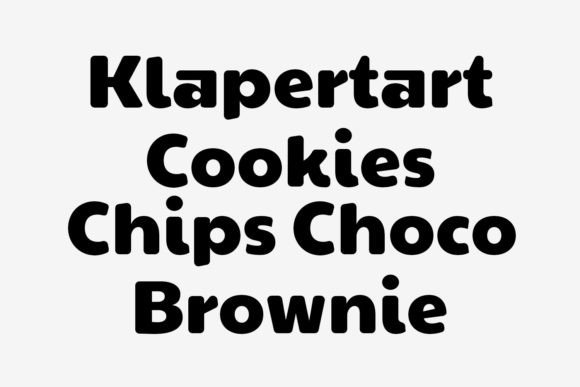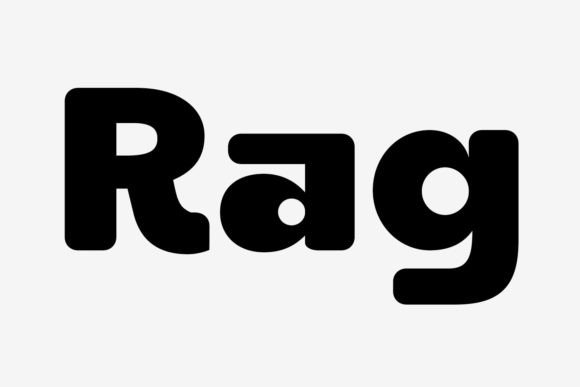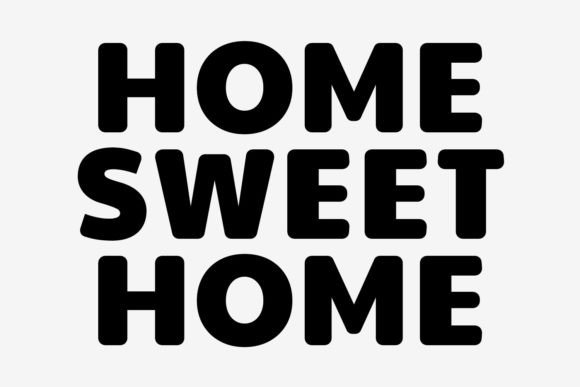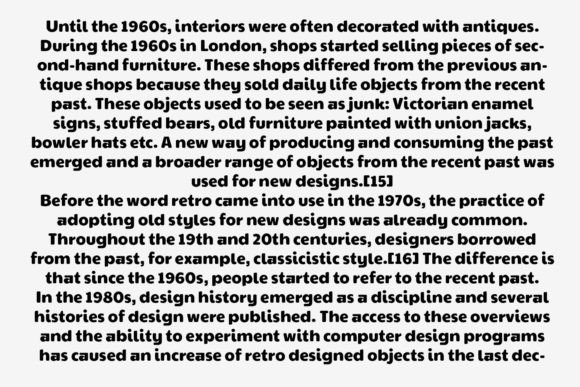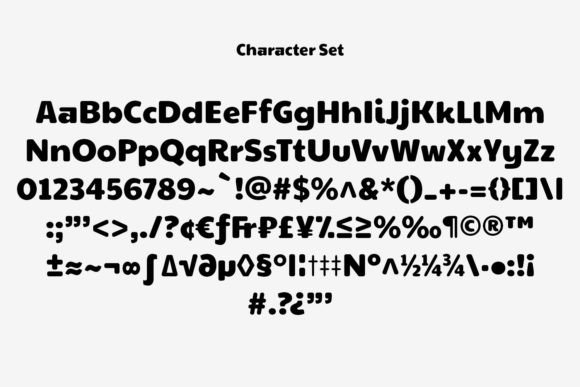
Introduction to Karnet Font
Have you ever found yourself staring at a blank canvas, waiting for that perfect spark to ignite your creative project? It’s a moment we’ve all been in, and it’s what makes discovering a new design resource so thrilling. For designers, the quest for the ideal font can be a game-changer. And, we’re excited to introduce you to the Karnet Font – a cool and unique sans serif font that’s about to take your designs to the next level.
With its sleek and modern aesthetic, the Karnet Font is incredibly versatile, making it suitable for a wide spectrum of design ideas. Whether you’re working on a project that requires a bold statement or a subtle touch, this font is sure to deliver. Plus, with a transparent background option, you can easily customize it to fit your design needs.
Key Features of Karnet Font
- Transparent background, allowing for seamless integration
- Includes 4 unique font styles with varying weights and styles
Honest Review: Karnet Font
As a designer, I’m always on the lookout for high-quality design resources to elevate my creative projects. Recently, I had the opportunity to try out the Karnet Font, and I’m excited to share my honest review with you.
Here are some things that work well with the Karnet Font: ✨
- Unique and modern design aesthetic that’s perfect for trendy projects
- Transparent background makes it easy to customize and layer with other design elements
- Limited language support, which may be a concern for designers working on international projects
Overall, I’m impressed with the Karnet Font’s potential as a design resource. Its modern design and high-quality fonts make it a great choice for creative projects. While there are some limitations to consider, I think it’s worth exploring further, especially since it’s available for free download.
Karnet Font is suitable for a variety of creative projects, including:
- Graphic design and branding materials.
- Infographics and data visualizations.
- Print and digital marketing materials.